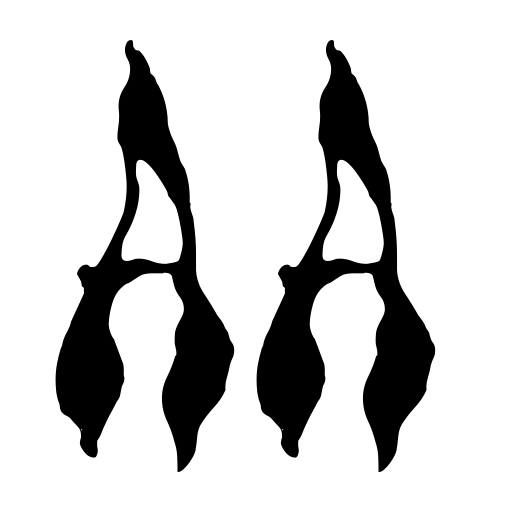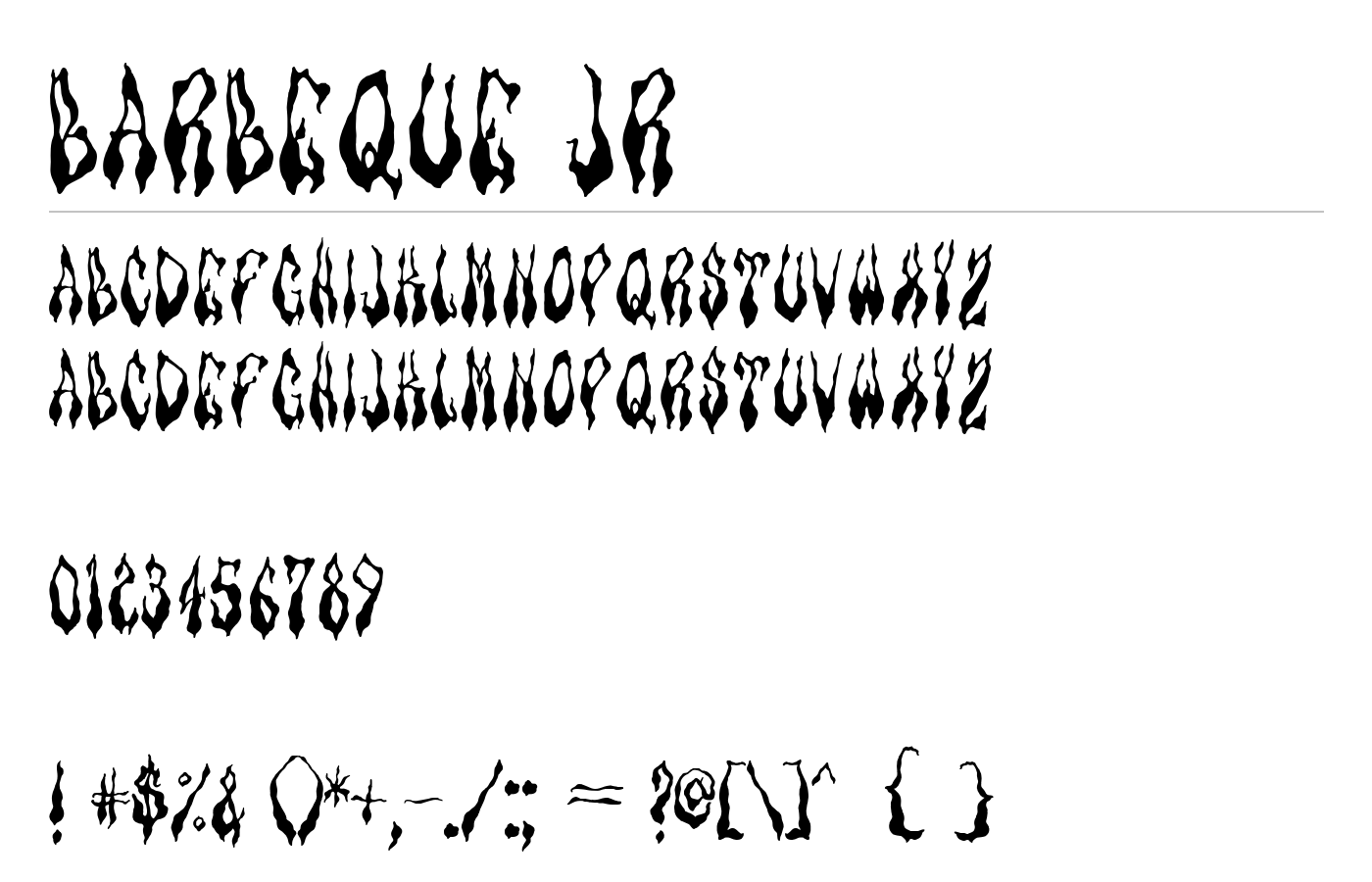
Barbeque Jr is a bold, narrow display font with a fiery, flame-like appearance that gives it a dramatic and edgy personality. Its jagged, irregular shapes create a sense of movement and intensity, making it perfect for creating eye-catching headlines or logos that need a rebellious or dynamic vibe. This font works best in creative projects such as posters, event branding, or themed designs where a strong, energetic impact is desired.
Barbeque Jr Font